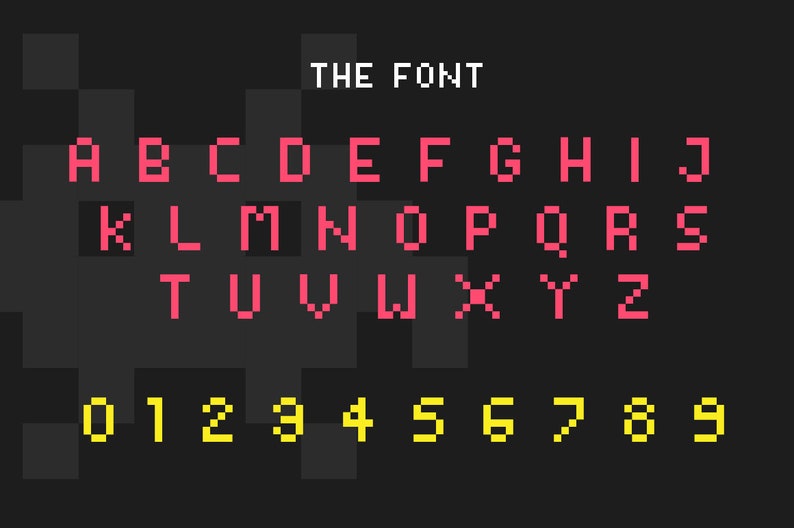
Best Fonts For Small Screens . Check out the typetype list of the. Just sans — bold and friendly alternative to helvetica (get 2 free weights) lucida grande — best for small. I find verdana to be ideal for small font sizes (not so much for bigger ones). Enhance readability and style in your designs with our top font picks for clarity and impact. Discover the best fonts for small text: Or, if you can, you could use a pixel font. Helvetica — best sans serif, great for print and display sizes. Learn how to choose fonts that enhance readability, clarity and legibility in web and print design. Discover the top 10 fonts. When deciding on the fonts to use in your site, consider whether you want your site to use the same fonts across all screen sizes or if you are. Learn how to choose fonts that enhance readability and legibility for visually impaired users.
Check out the typetype list of the. Learn how to choose fonts that enhance readability and legibility for visually impaired users. Discover the top 10 fonts. Just sans — bold and friendly alternative to helvetica (get 2 free weights) lucida grande — best for small. Learn how to choose fonts that enhance readability, clarity and legibility in web and print design. When deciding on the fonts to use in your site, consider whether you want your site to use the same fonts across all screen sizes or if you are. I find verdana to be ideal for small font sizes (not so much for bigger ones). Discover the best fonts for small text: Or, if you can, you could use a pixel font. Helvetica — best sans serif, great for print and display sizes.
Best Fonts For Small Screens Learn how to choose fonts that enhance readability and legibility for visually impaired users. I find verdana to be ideal for small font sizes (not so much for bigger ones). Discover the top 10 fonts. Just sans — bold and friendly alternative to helvetica (get 2 free weights) lucida grande — best for small. Enhance readability and style in your designs with our top font picks for clarity and impact. Discover the best fonts for small text: Helvetica — best sans serif, great for print and display sizes. Learn how to choose fonts that enhance readability, clarity and legibility in web and print design. Learn how to choose fonts that enhance readability and legibility for visually impaired users. When deciding on the fonts to use in your site, consider whether you want your site to use the same fonts across all screen sizes or if you are. Check out the typetype list of the. Or, if you can, you could use a pixel font.
Best Font For Small Text Ultimate Guide Best Fonts For Small Screens Learn how to choose fonts that enhance readability and legibility for visually impaired users. Enhance readability and style in your designs with our top font picks for clarity and impact. Discover the best fonts for small text: Helvetica — best sans serif, great for print and display sizes. Just sans — bold and friendly alternative to helvetica (get 2 free. Best Fonts For Small Screens.
Digital Display Font Download Best Fonts For Small Screens When deciding on the fonts to use in your site, consider whether you want your site to use the same fonts across all screen sizes or if you are. Or, if you can, you could use a pixel font. Learn how to choose fonts that enhance readability, clarity and legibility in web and print design. I find verdana to be. Best Fonts For Small Screens.
80+ Best Canva Fonts Ultimate Canva Font Guide for Choosing Fonts in Best Fonts For Small Screens Learn how to choose fonts that enhance readability, clarity and legibility in web and print design. Check out the typetype list of the. Discover the best fonts for small text: Learn how to choose fonts that enhance readability and legibility for visually impaired users. Discover the top 10 fonts. I find verdana to be ideal for small font sizes (not. Best Fonts For Small Screens.
Screen Printing Fonts Best Fonts For Small Screens Discover the top 10 fonts. Check out the typetype list of the. I find verdana to be ideal for small font sizes (not so much for bigger ones). Learn how to choose fonts that enhance readability, clarity and legibility in web and print design. Helvetica — best sans serif, great for print and display sizes. Learn how to choose fonts. Best Fonts For Small Screens.
Best Font For Small Text Ultimate Guide Best Fonts For Small Screens Discover the best fonts for small text: Learn how to choose fonts that enhance readability, clarity and legibility in web and print design. I find verdana to be ideal for small font sizes (not so much for bigger ones). When deciding on the fonts to use in your site, consider whether you want your site to use the same fonts. Best Fonts For Small Screens.